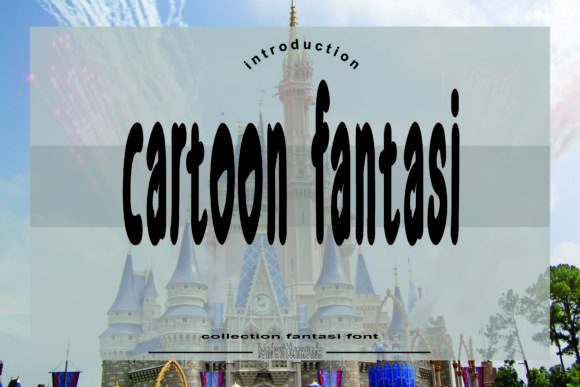
The Ultimate Guide to Cartoon Fantasi Font: Adding Adventure to Your Designs
Have you ever been in the middle of a design project, and suddenly, you just can’t seem to find the right font? I recall a particularly frustrating experience while working on a children’s book project. My client wanted a font that was not only playful but also adventurous and authentic. After scouring through countless font libraries, I stumbled upon Cartoon Fantasi – a bold and tall handwritten font that instantly captured the essence of the story. In this article, I’ll share my experience with Cartoon Fantasi, its features, and how to make the most of it in your designs.
An Honest Review of Cartoon Fantasi
Cartoon Fantasi is a unique font that can instantly elevate your designs. Here’s what I love about it:
- ✨ Bold and tall: Cartoon Fantasi’s tall letters make it perfect for headings, titles, and quotes that need to stand out.
- ✅ Handwritten feel: The font’s handwritten texture adds a personal touch to any design, making it ideal for projects that require a human touch.
- ✨ Versatile: Cartoon Fantasi can be used for a wide range of projects, from children’s books and posters to social media graphics and presentations.
While Cartoon Fantasi is an excellent font, it’s not without its quirks:
- 🤔 Limited use in body text: Due to its bold and tall nature, Cartoon Fantasi might not be the best choice for lengthy body text. It’s best used for headings, titles, or short paragraphs.
- ⚠️ Legibility at small sizes: When used at very small sizes, some letters might lose their legibility. It’s best to use Cartoon Fantasi at larger sizes to ensure maximum impact.
The Backstory Behind Cartoon Fantasi
Cartoon Fantasi was designed with the intention of capturing the essence of adventure and fantasy. Its creator aimed to craft a font that would transport users to a world of imagination and creativity. With its bold and tall letters, Cartoon Fantasi is sure to add a touch of magic to any design.
| Font Name | Cartoon Fantasi Font |
| Author | handwrittenwanda |
Q: What type of projects is Cartoon Fantasi best suited for?
A: Cartoon Fantasi is ideal for projects that require an adventurous and authentic feel, such as children’s books, posters, social media graphics, and presentations.
Q: Is Cartoon Fantasi suitable for body text?
A: Due to its bold and tall nature, Cartoon Fantasi is best used for headings, titles, or short paragraphs. It’s not recommended for lengthy body text.